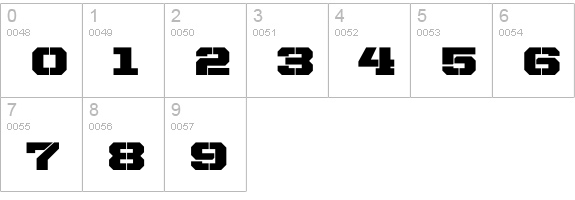
United Serif SemiExt Stencil is a remarkable font that effortlessly combines elegance with a touch of ruggedness. Its unique design showcases a perfect balance between the classic and the contemporary, making it suitable for a wide range of design projects. The semi-extended letterforms of United Serif SemiExt Stencil lend a sense of authority and sophistication, while the stencil style adds a versatile and modern twist. This font is ideal for conveying a sense of strength and professionalism in branding, advertising, and editorial designs. With its precise and clean lines, United Serif SemiExt Stencil is easily legible even at smaller sizes, ensuring readability across various platforms and mediums. Whether it's used for headings, titles, or body text, this font exudes a sense of confidence and style. United Serif SemiExt Stencil is freely available to download at FontsMarket.com, providing designers and creatives with the opportunity to bring their projects to life without any financial constraints. Its availability as a free download makes it accessible to a wide audience, regardless of budget or resources. Experience the versatility and charm of United Serif SemiExt Stencil as you explore its extensive character set, which includes uppercase letters, numbers, punctuation marks, and special symbols. Its compatibility with both digital and print media allows for seamless integration into various design workflows. Whether you're working on a modern logo, a vintage-inspired poster, or an eye-catching website, United Serif SemiExt Stencil is the perfect choice to captivate your audience. Download this exceptional font now from FontsMarket.com and unleash your creativity with a font that not only stands out but is also freely available to elevate your designs to new heights.